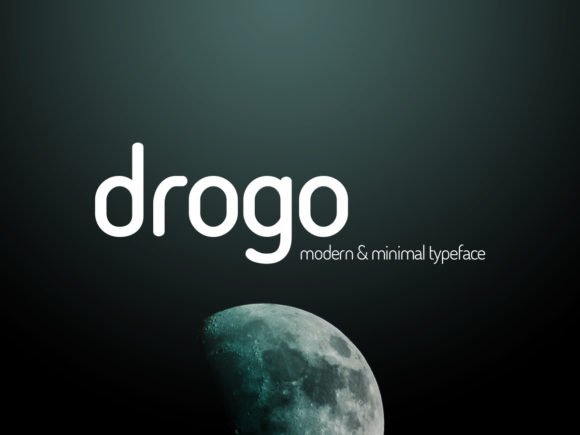
Discover the Power of Drogo Font
Have you ever stared at a blank canvas, struggling to find the perfect font to bring your creative vision to life? You’re not alone. As designers, we’ve all been there – searching for the perfect combination of style, readability, and versatility to make our projects truly shine.
Enter Drogo Font, a sleek and modern sans serif font designed to elevate your creative ideas and make them stand out in a crowded market. With its clean lines, minimal aesthetic, and effortless readability, Drogo Font is the perfect addition to any design project. Whether you’re working on a branding campaign, a web design, or a print ad, Drogo Font is a valuable tool that will help you achieve your design goals.
Drogo Font Key Features
- Font Family: Drogo Font is a sans-serif font family, designed to provide a clean and modern look.
- Character Set: The font includes a wide range of characters, including Latin, Cyrillic, and Greek alphabets, as well as punctuation and symbols.
- Unique Characteristics: Drogo Font features a distinctive geometric shape, with sharp lines and a minimalist aesthetic, making it ideal for use in digital design and branding.
Drogo Font Review
I’ve had the chance to work with the Drogo font, and overall, I’m impressed. ✨ The font’s unique blend of elegance and ruggedness makes it perfect for projects that need a touch of sophistication without feeling too formal. The font’s geometric shapes and clean lines make it highly legible, even at smaller font sizes.
Some of the things that I think work particularly well with Drogo include:
- Its versatility: Drogo can be used for a wide range of projects, from headings and titles to body text.
- Its legibility: As mentioned earlier, Drogo is highly legible, even at smaller font sizes.
- Its unique aesthetic: The font’s blend of elegance and ruggedness makes it stand out from more traditional fonts.
That being said, there are a few limitations to the Drogo font that are worth noting:
- Its limited language support: While Drogo includes support for many languages, it may not be as comprehensive as some other fonts.
- Its limited character set: Drogo’s character set is somewhat limited, which may make it difficult to use for projects that require a wide range of special characters.
Overall, I think Drogo is a solid choice for projects that need a unique and elegant font. While it may have some limitations, its versatility and legibility make it a great option for designers looking to add some sophistication to their work.
Tips for Getting the Most Out of Drogo Font
Use the Drogo font in bold or italic styles to add emphasis to your text. Experiment with different font sizes and combinations to create visually appealing designs. Use the font in conjunction with other design elements to create a unique and eye-catching look.
The Drogo font is ideal for use in branding, logos, and typography-based designs. It can also be used in packaging, labels, and other marketing materials where a bold and eye-catching font is required.
Comparison to Drogo Font: While both fonts are elegant, Playfair Display has a more refined and classical look, whereas Drogo Font has a more rugged and medieval feel. Playfair Display is also more versatile and can be used in a wider range of designs.